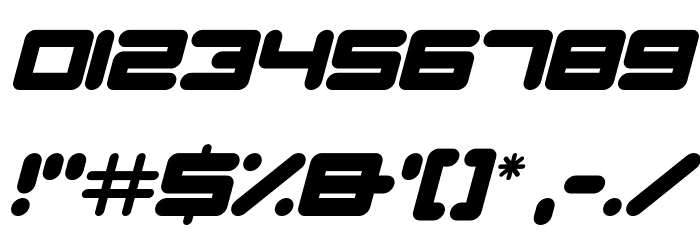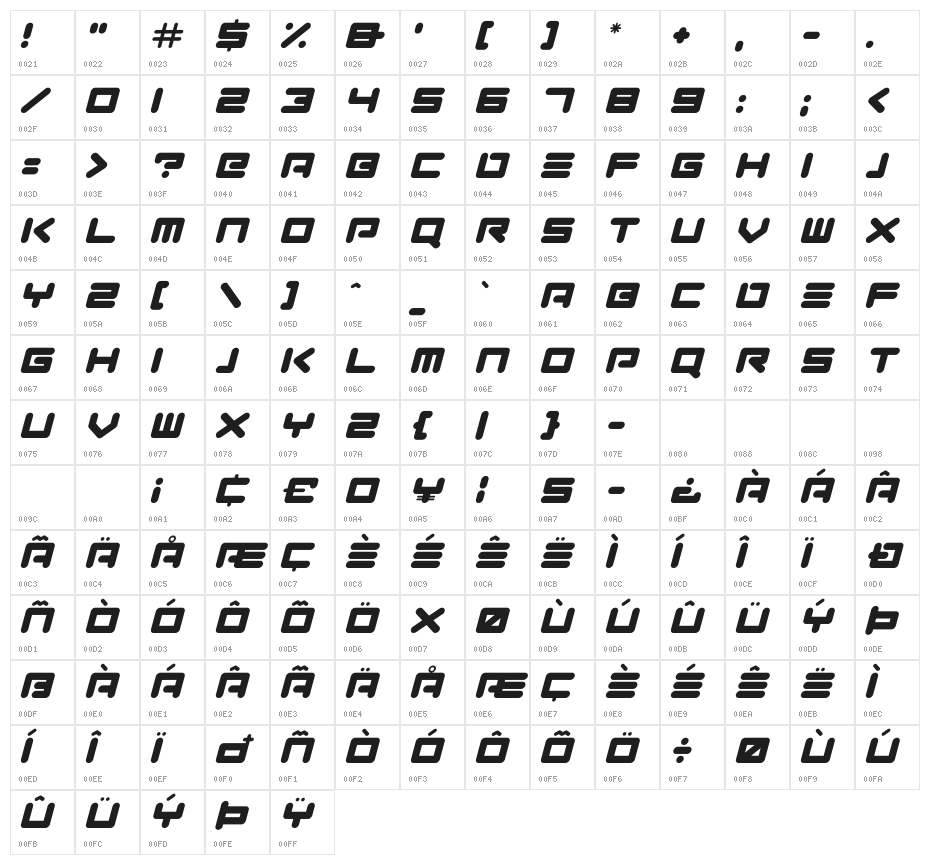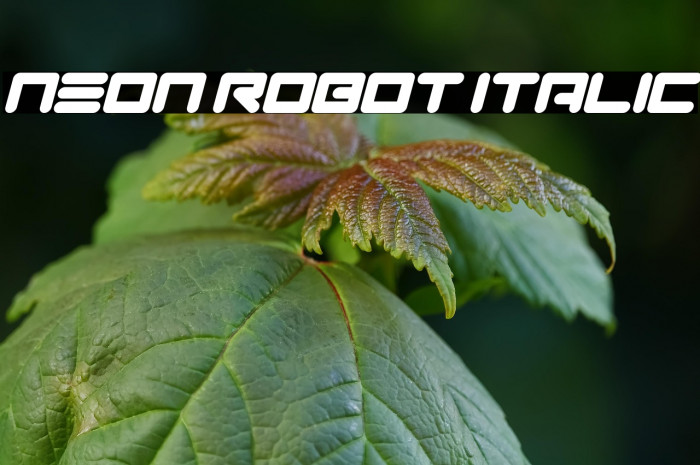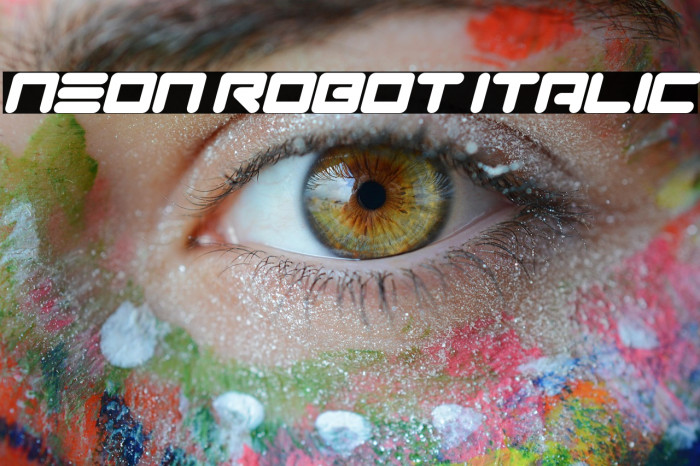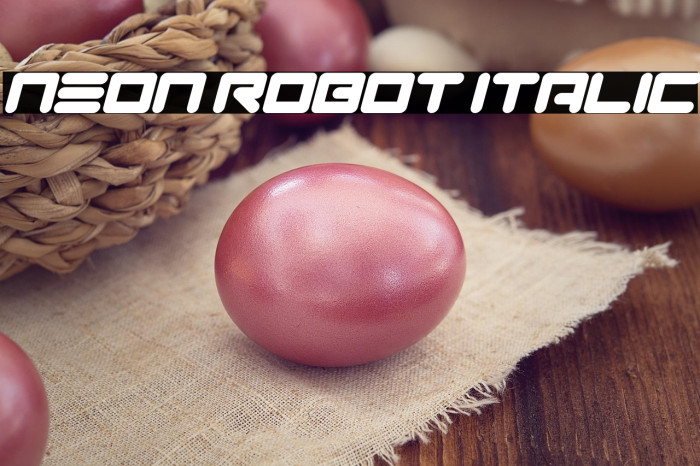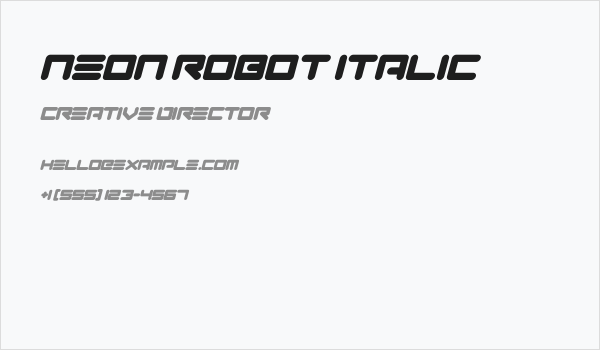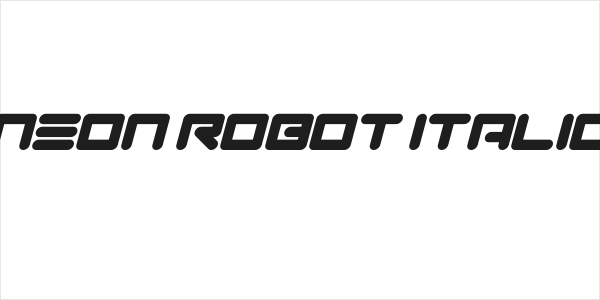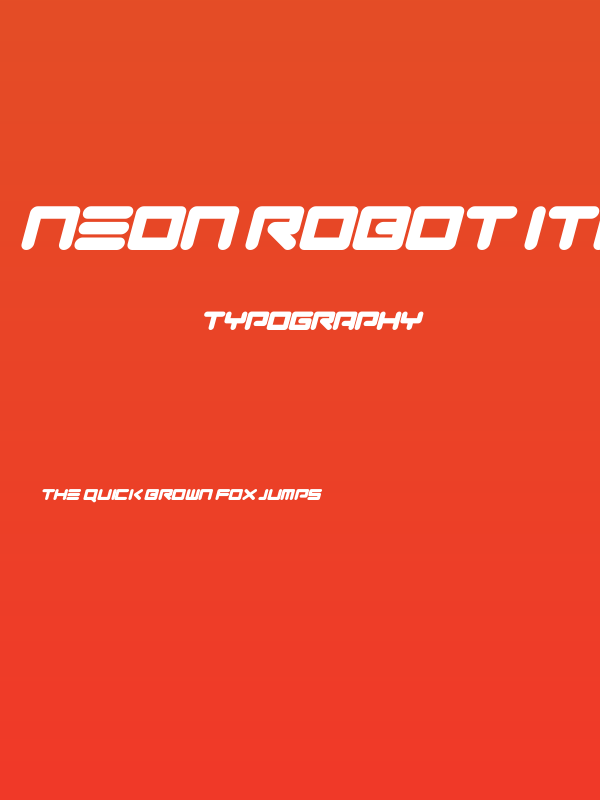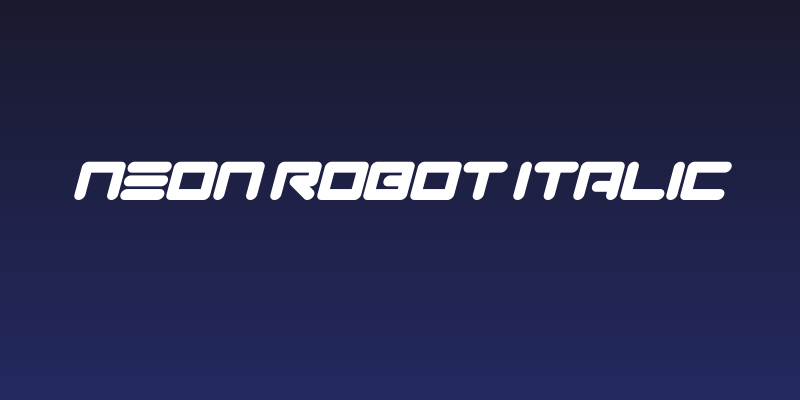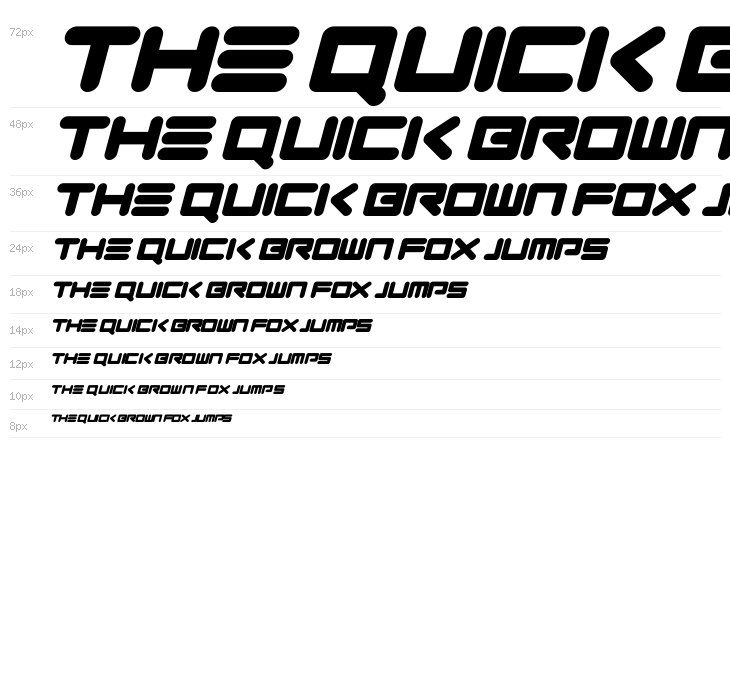
Neon Robot Italic Font
Neon Robot Italic Description
This font features a futuristic and robotic aesthetic, characterized by its bold and italicized letterforms. The design incorporates rounded edges and a consistent stroke width, giving it a sleek and modern appearance. The uppercase and lowercase letters maintain a uniform style, with a slight slant that enhances its dynamic look. The numerals and special characters are crafted to match the overall theme, providing a cohesive and visually appealing set. This font's unique style makes it suitable for projects that require a modern and tech-inspired touch.
| Proposed Projects | Ideal for tech-related branding, sci-fi movie posters, video game titles, and digital interfaces. |